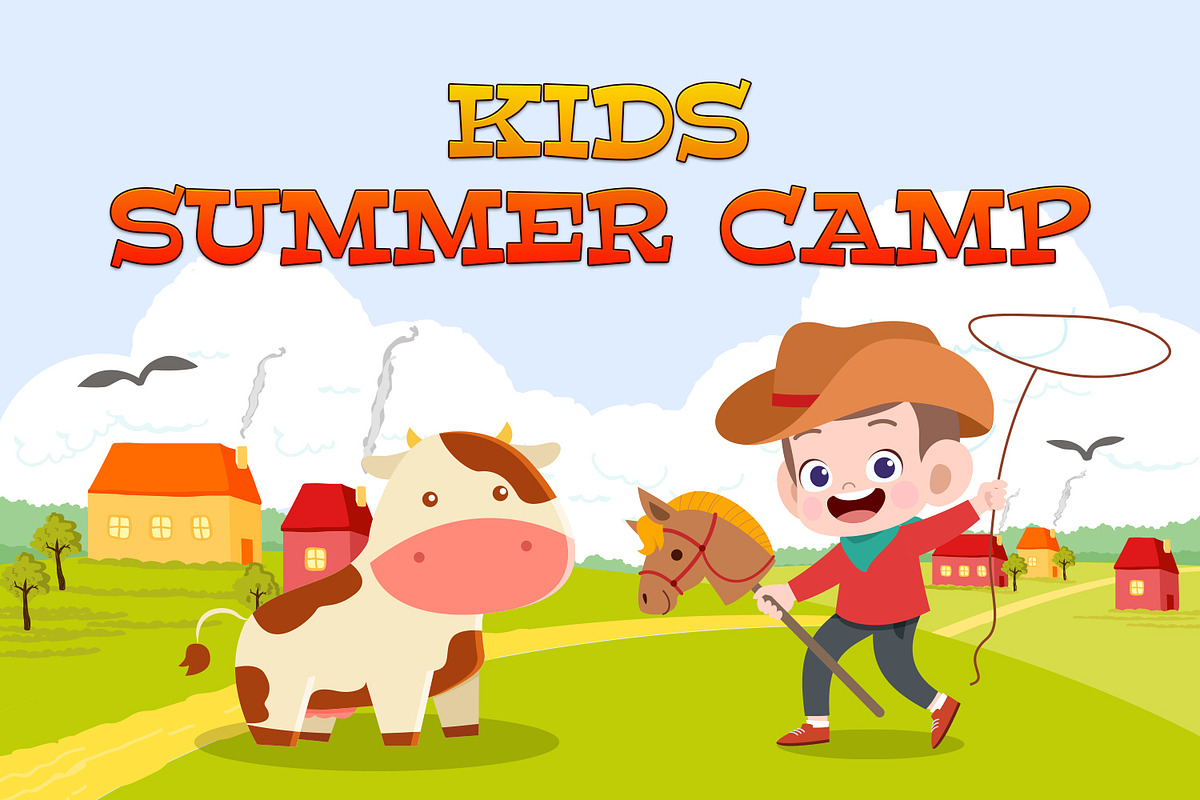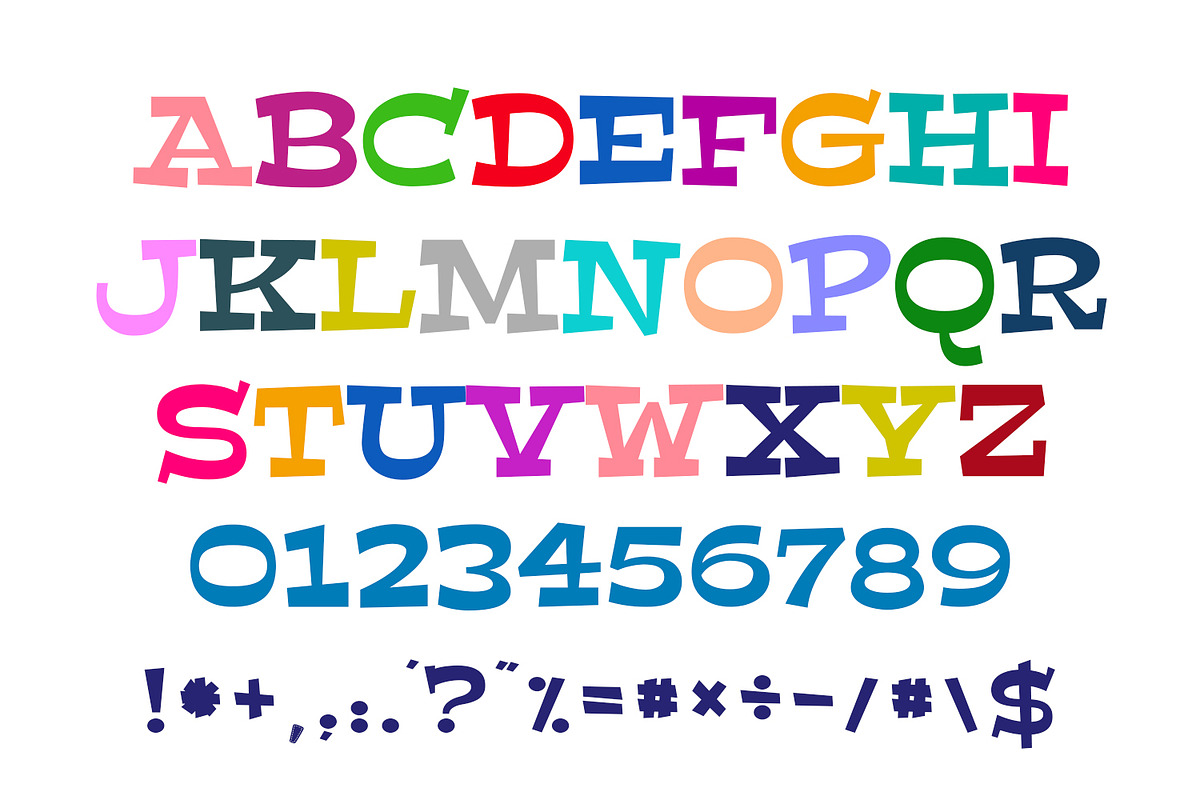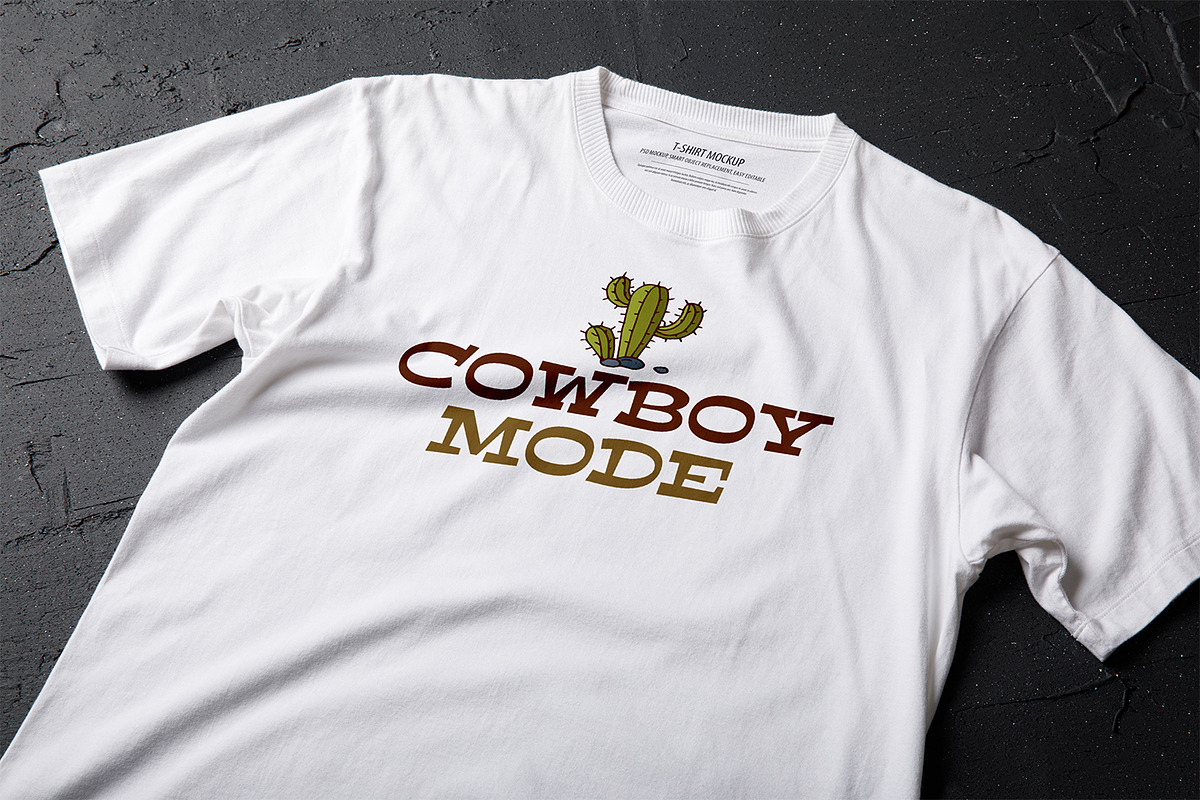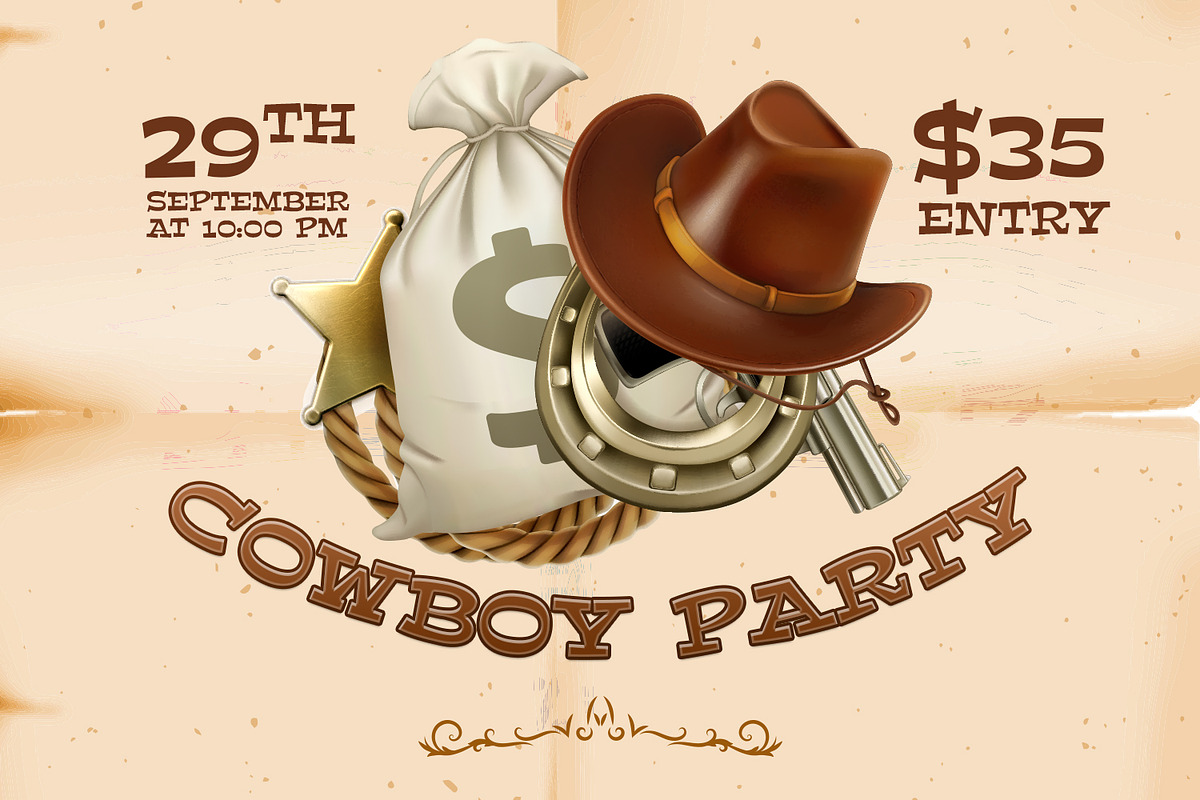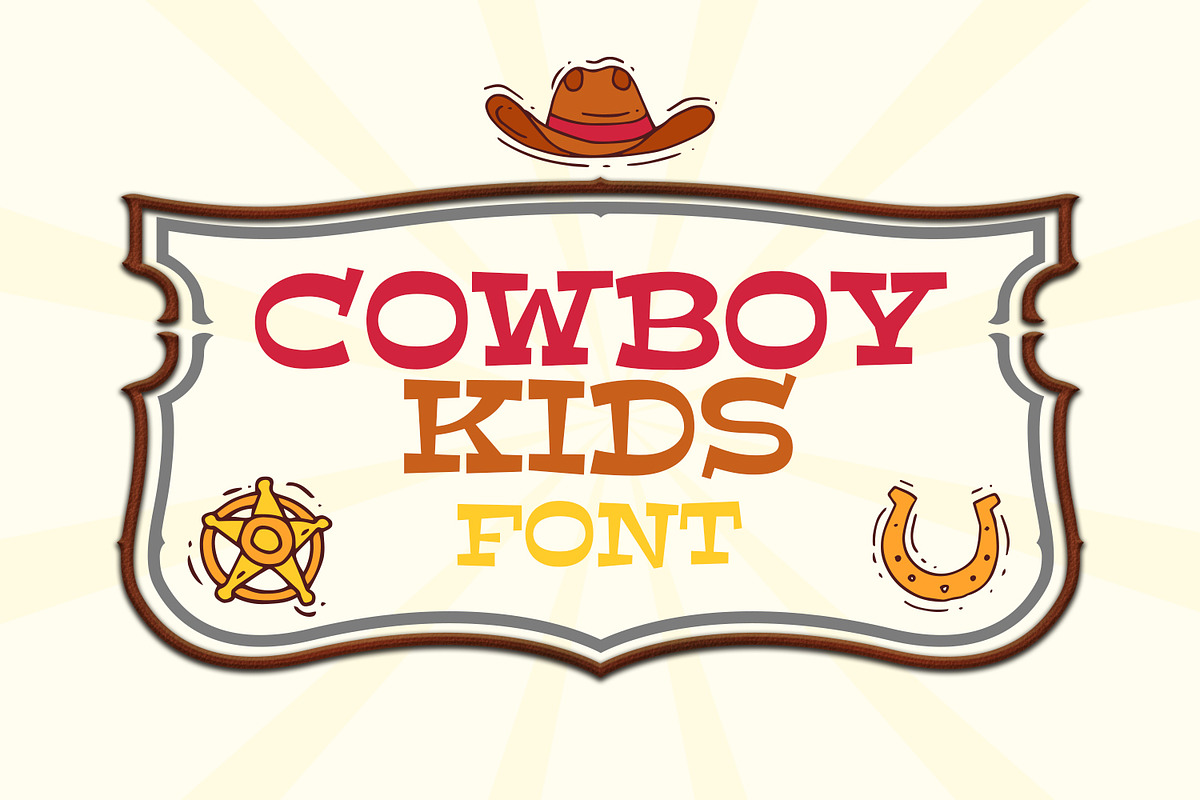
Cowboy Kids Font
Cowboy Kids is an incredibly unique display font. Use this western display font to add that special retro touch to any design idea you can think of! Masterfully designed to become a true favorite, this font has the potential to bring each of your creative ideas to the highest level!